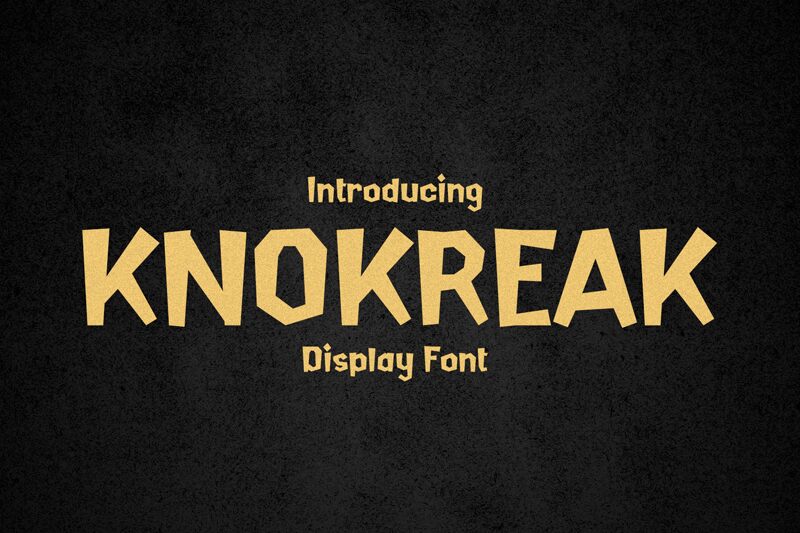
KNOKREAK
Knokreak, from the creative minds at Typeline Studio, emerges as a playful yet commanding display font with a comic twist. Its semi-bold character exudes a lively energy perfect for capturing attention in an array of creative projects. Whether you're crafting engaging headlines, whimsical branding, or stand-out packaging, Knokreak's unique flair promises to inject personality and vibrancy into your designs.
This versatile typeface is adept at straddling the line between professional polish and fun informality, making it an ideal choice for designers looking to make a bold statement.